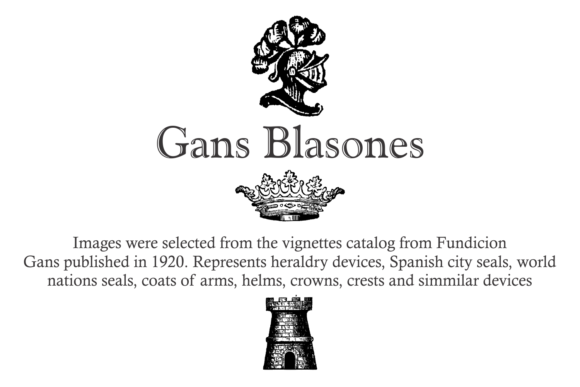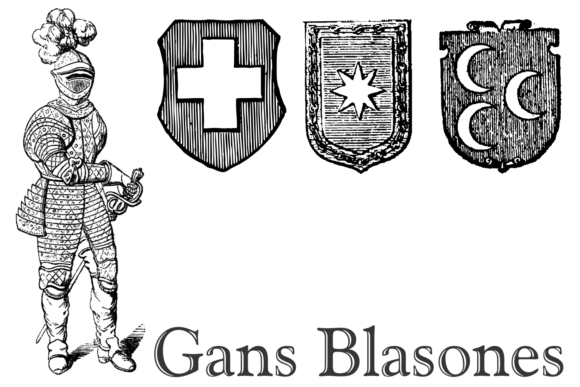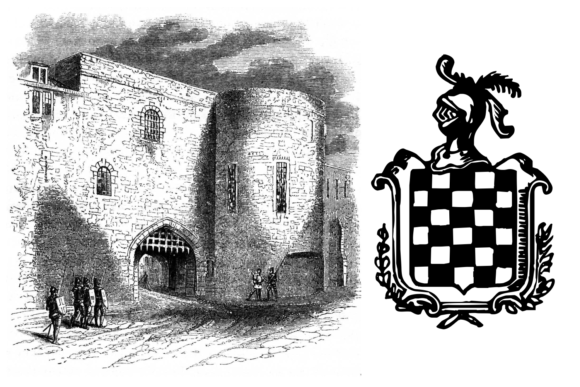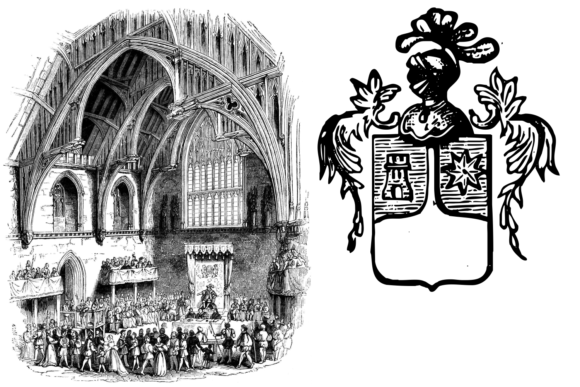
Gans Blasones Family Font: A Heraldic Designer’s Delight
Are you a designer or crafter looking for a unique and authentic font to add a touch of elegance and sophistication to your projects? Look no further than the Gans Blasones Family Font. This stunning font is inspired by the heraldic devices, Spanish city seals, world nations seals, coats of arms, helms, crowns, crests, and more, carefully selected from the vignettes catalog of Fundicion Gans, published in 1920.
A Brief History of Gans Blasones
The Gans Blasones images were selected from the vignettes catalog from Fundicion Gans, a renowned foundry that published its catalog in 1920. The catalog featured a vast collection of heraldic devices, Spanish city seals, world nations seals, coats of arms, helms, crowns, crests, and more. These images were carefully crafted to represent the rich history and heritage of heraldry, and have been meticulously digitized to create the Gans Blasones Family Font.
What is Gans Blasones Family Font?
Gans Blasones Family Font is a comprehensive collection of heraldic-inspired glyphs, carefully designed to bring a touch of nobility and sophistication to your designs. The font features a wide range of characters, including letters, numbers, and symbols, all crafted to resemble the intricate details of heraldic devices. With Gans Blasones, you can add a touch of elegance and refinement to your projects, whether you’re designing a logo, a crest, or a decorative piece.
Key Features of Gans Blasones Family Font
- Heraldic-inspired glyphs: The font features a wide range of glyphs inspired by heraldic devices, including coats of arms, helms, crowns, crests, and more.
- Authentic and unique: Each glyph has been carefully crafted to replicate the intricate details of the original vignettes catalog.
- Wide range of characters: The font includes a comprehensive set of characters, including letters, numbers, and symbols.
- Elegant and sophisticated: Gans Blasones adds a touch of nobility and refinement to your designs.
Uses for Gans Blasones Family Font
Gans Blasones Family Font is perfect for designers and crafters looking to add a touch of elegance and sophistication to their projects. Here are some ideas for using this stunning font:
- Logo design: Use Gans Blasones to create a unique and memorable logo for your business or organization.
- Crest design: Create a stunning crest or coat of arms using the heraldic-inspired glyphs.
- Decorative pieces: Use Gans Blasones to create beautiful decorative pieces, such as certificates, invitations, or stationery.
- Heraldic designs: Create authentic heraldic designs, such as coats of arms, helms, crowns, and crests.
Tips for Using Gans Blasones Family Font
Here are some tips for getting the most out of Gans Blasones Family Font:
- Experiment with different sizes: The font looks great at large sizes, but also experiment with smaller sizes to add a touch of elegance to your designs.
- Combine with other fonts: Combine Gans Blasones with other fonts to create a unique and interesting contrast.
- Pay attention to details: The intricate details of the glyphs are what make Gans Blasones so special, so be sure to pay attention to these when using the font.